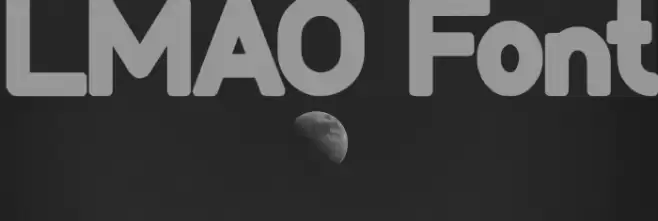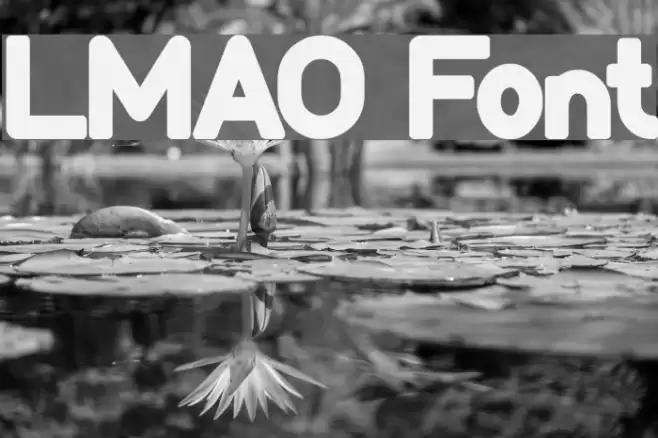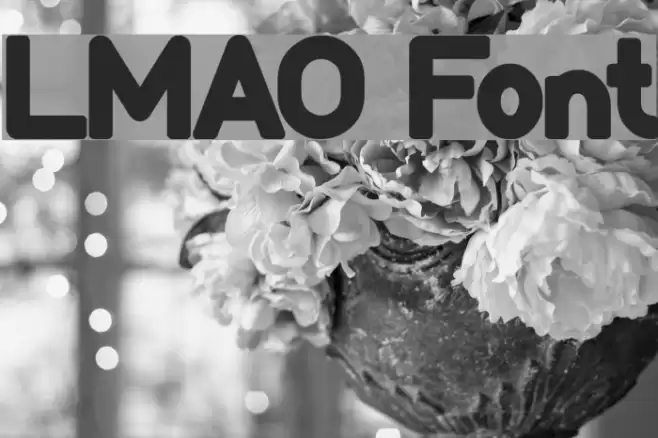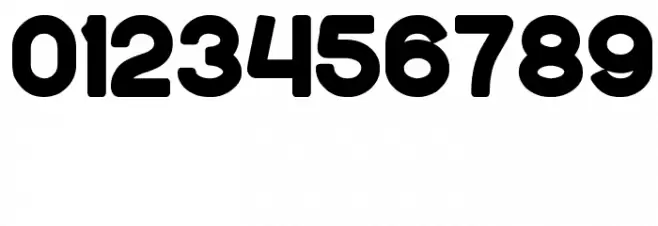
LMAO Font
LMAO Description
This font features bold, rounded characters that convey a playful and friendly tone. The letters are uniformly thick, with a consistent stroke width that gives the font a cohesive appearance. The rounded edges soften the overall look, making it approachable and suitable for casual or informal contexts. The numerals and special characters maintain the same rounded style, ensuring visual harmony across all elements. The font's design is straightforward, with minimal contrast between strokes, emphasizing simplicity and readability.
A bold, rounded font with a playful and friendly style from Uncategorized fonts.
- Proposed Projects: Ideal for children's books, playful branding, casual invitations, and social media graphics.
- Overall Style: Playful